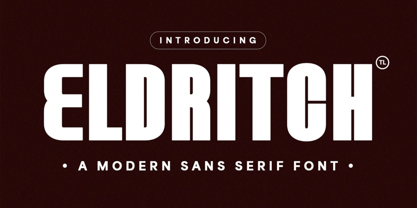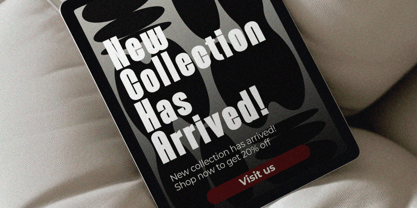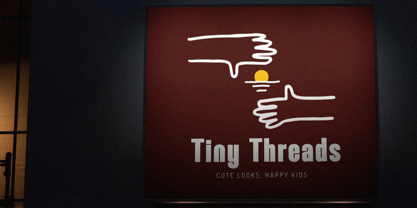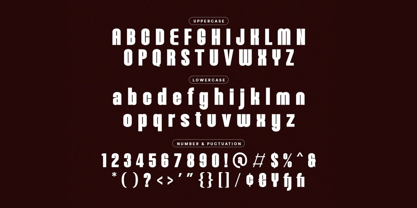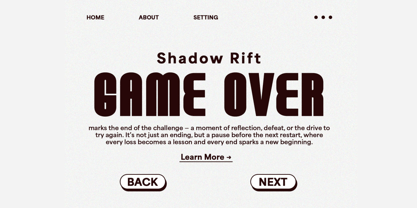
Almith
by Hasnat Studio
The Almith Font Family was designed by Hasnat Khan and published by Hasnat Studio. Almith contains 1 styles. More about this family
Almith is a striking modern sans serif typeface that effortlessly blends robust strength with subtle elegance. Designed to make a bold impression while maintaining clean readability, Almith is perfect for brand identities, impactful headlines, product packaging, web layouts, and editorial compositions.
With its distinctive character shapes and confident presence, Almith commands attention across both digital and print platforms. Its balanced proportions and modern design language bring a fresh, contemporary aesthetic to any project, making it an ideal choice for creatives looking to infuse sophistication and power into their typography.
✿ Key Features:
• Modern Sans Serif Style: Clean, powerful, and elegantly minimal
• Uppercase & Lowercase Letters: Full alphabet for flexible design use
• Numerals & Punctuation: Complete set for professional typesetting
• Clear & Versatile: Designed for both digital interfaces and print media
• Distinctive Character Design: Stand out with unique yet legible letterforms
✿ Perfect For:
• Bold Branding & Logo Design
• Modern Editorial Layouts
• Creative Headlines & Posters
• Product Packaging & Labels
• Web & Mobile UI Typography
• Corporate Identity & Presentations
Elevate your designs with Almith—a modern sans serif that delivers both impact and elegance in every letterform.
Designers: Hasnat Khan
Foundry: Hasnat Studio